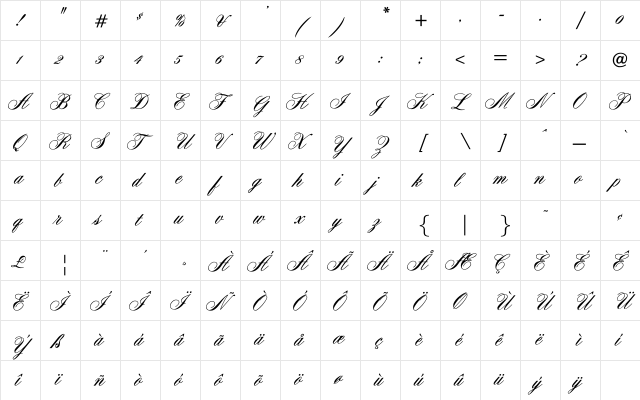
OYALE Scrip Bold Normal
Design Context for OYALE Scrip Bold Typeface
OYALE Scrip Bold is a composed and adaptable typeface that performs quietly and consistently across a wide range of design contexts. The heavy weight commands attention and anchors typographic hierarchies.